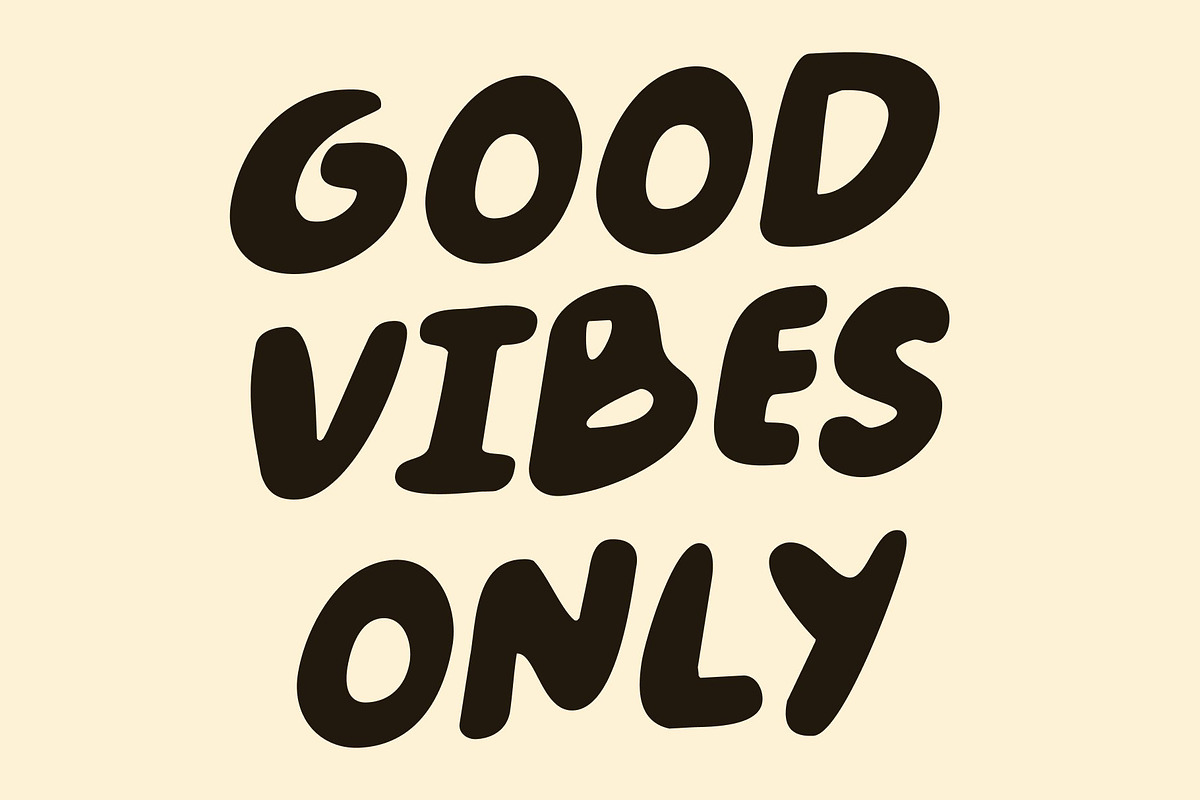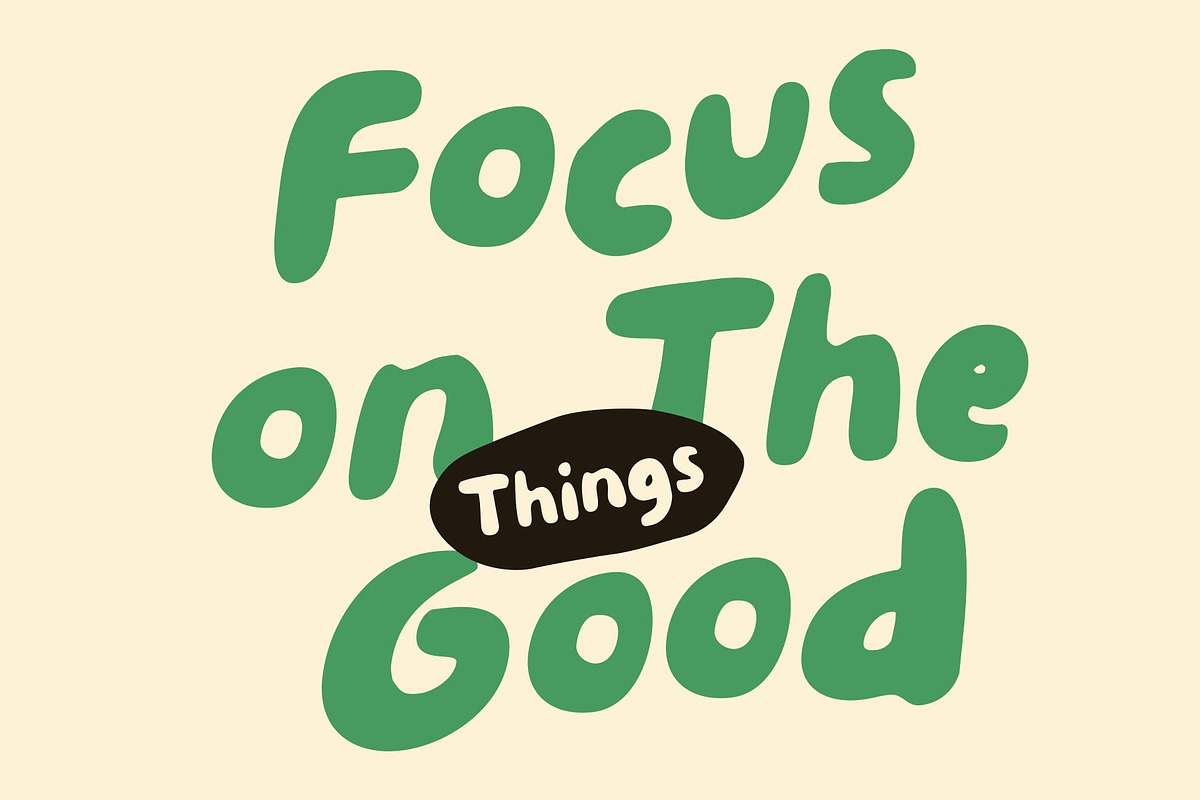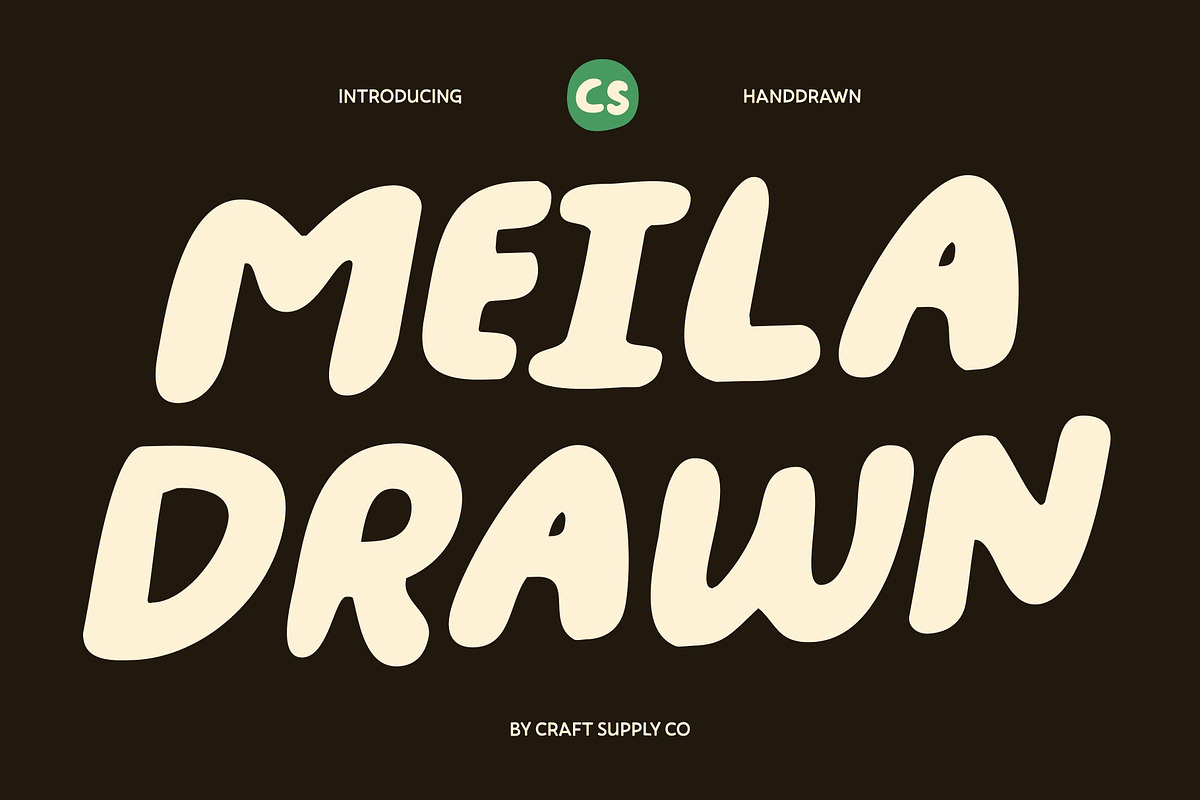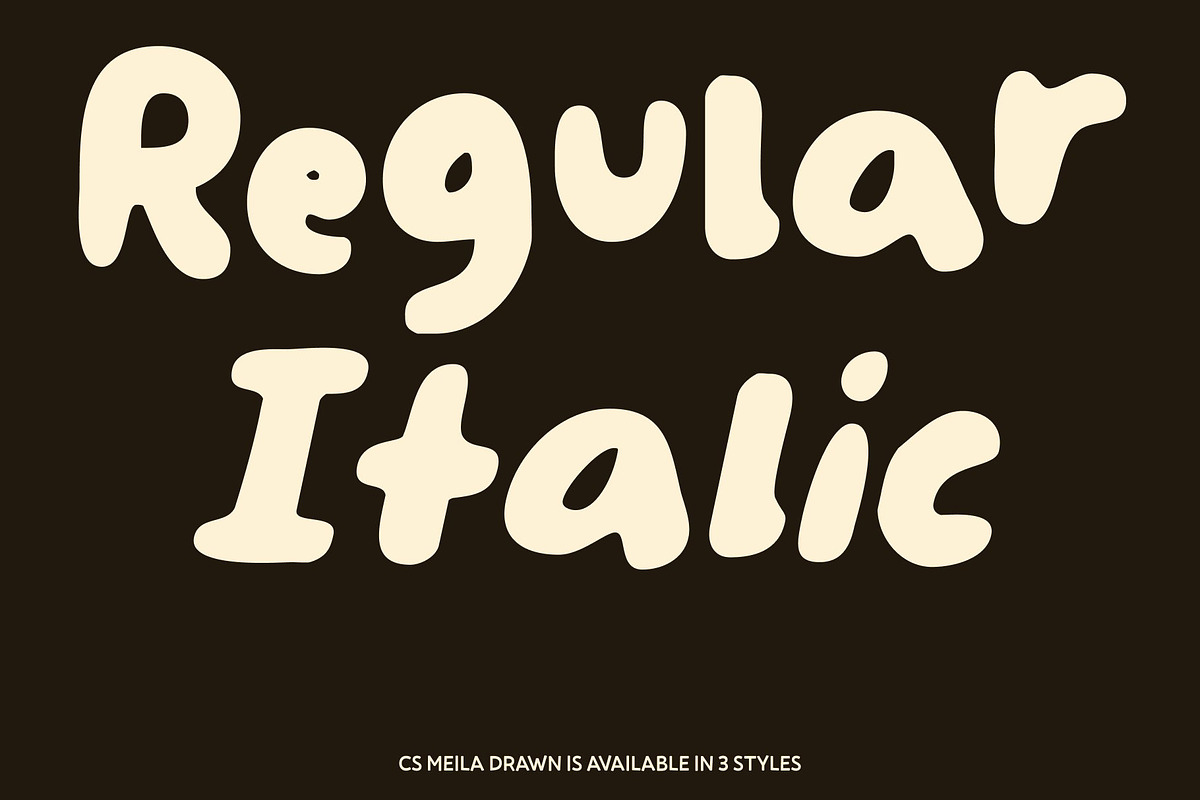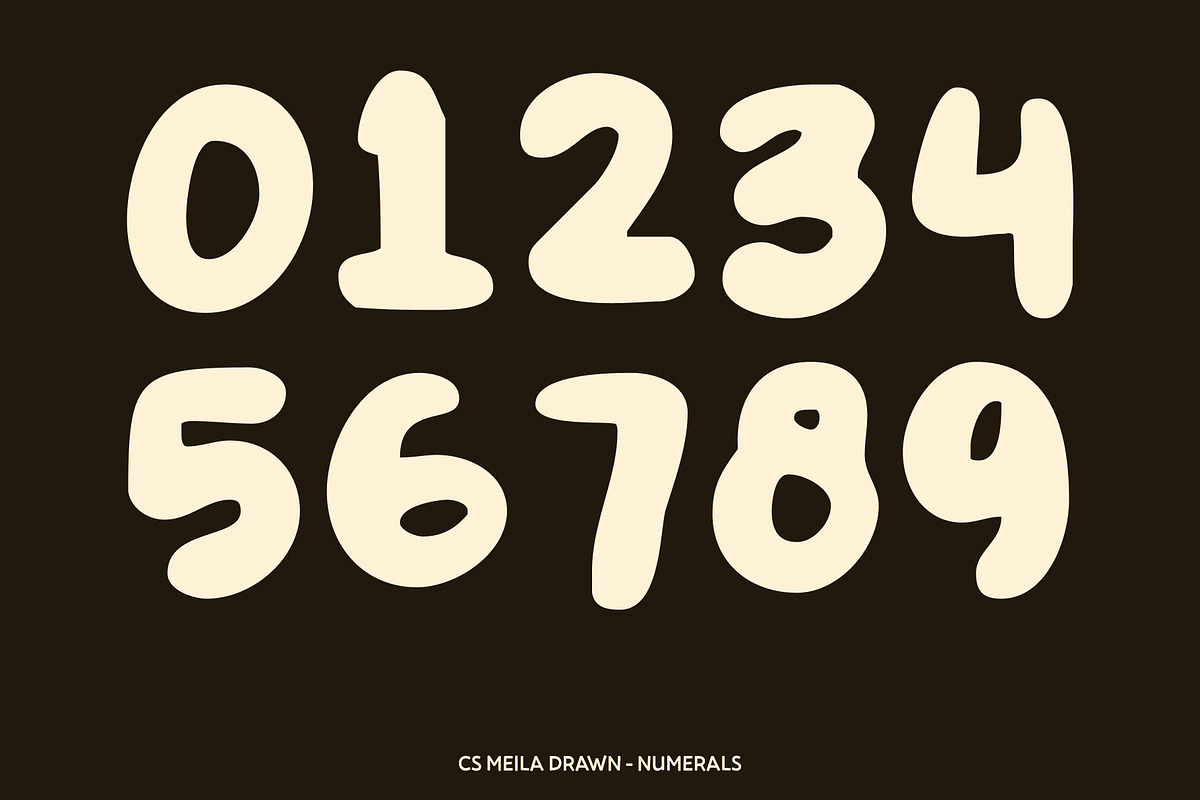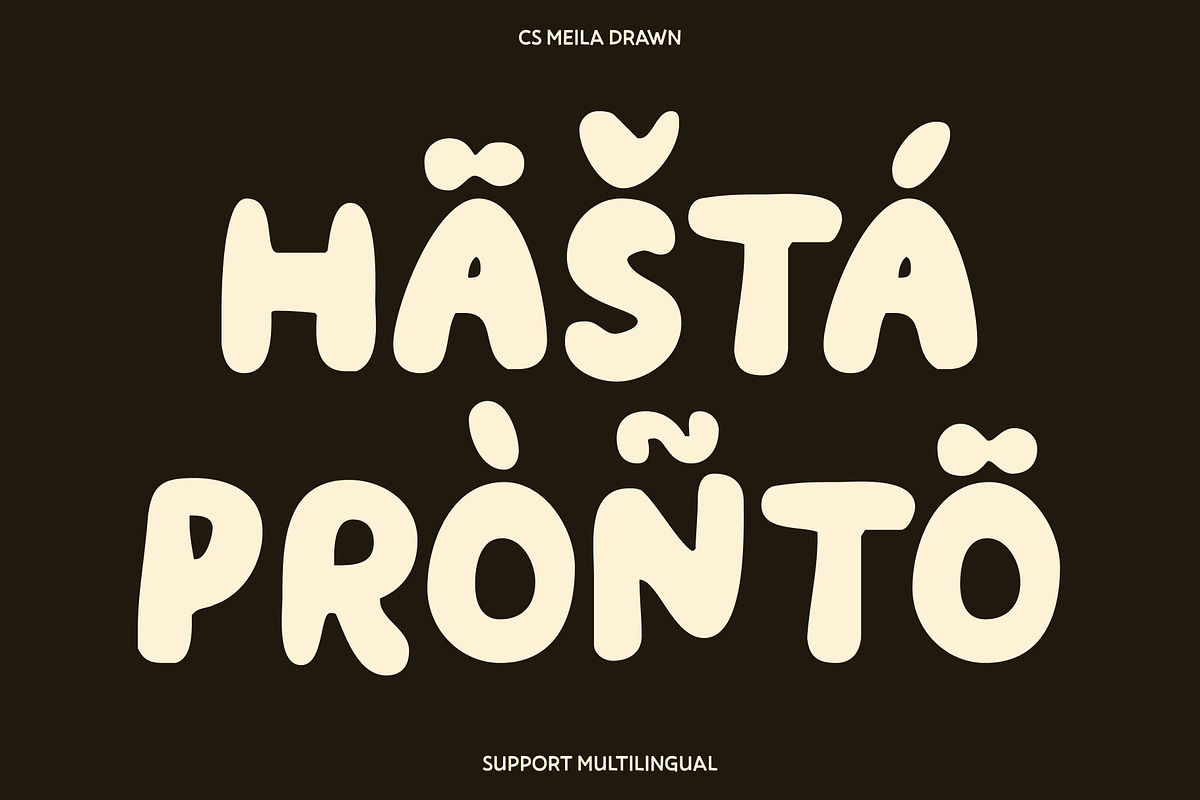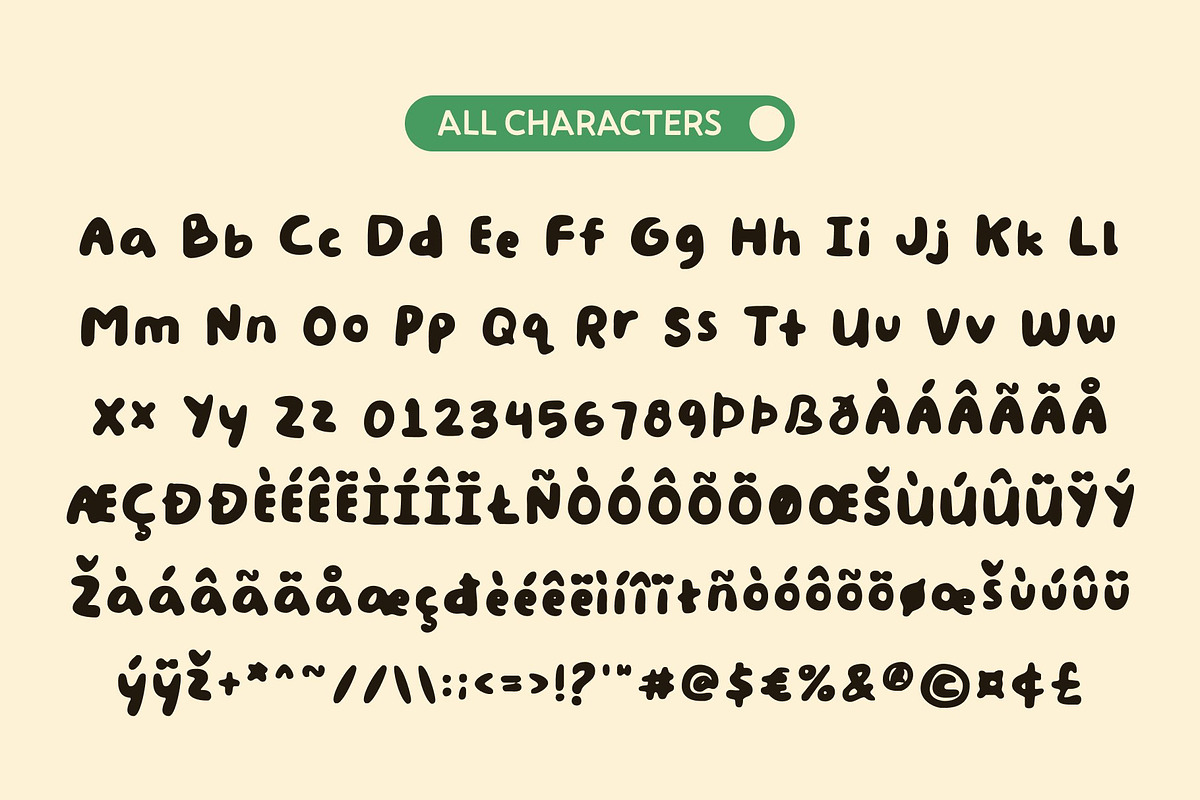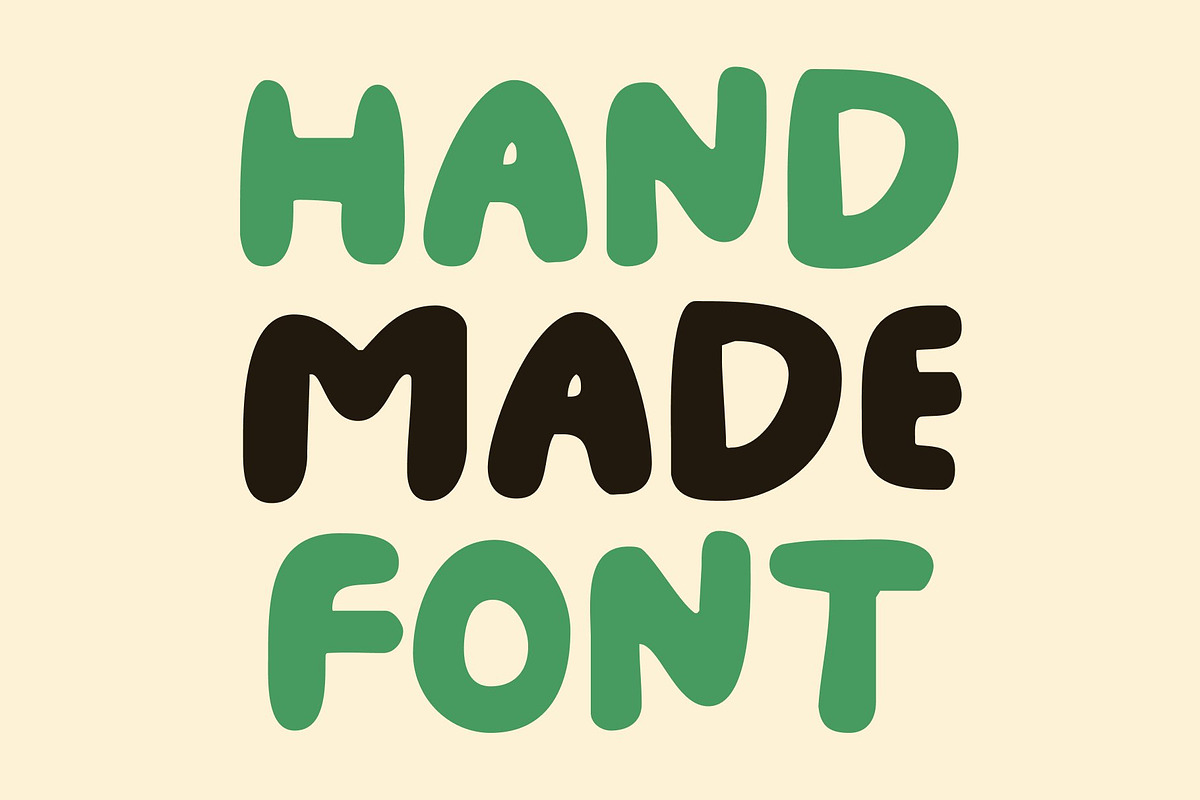
CS Meila Drawn
CS Meila Drawn – Playful Kids’ Font with Lively Personality
Cheerful Shapes with Hand-Drawn Energy This is a playful kids’ display font designed to bring joy, fun, and creativity through a lively hand-drawn texture. Its energetic letterforms and rounded curves create a cheerful visual rhythm that instantly captures attention. Each character feels friendly and expressive, making the font perfect for designs that aim to be vibrant, engaging, and full of youthful charm.
Lively Characters with Organic Personality The bold, expressive shapes are enhanced by subtle irregularities that give the font a handcrafted feel. This drawn effect adds warmth and movement, making every letter feel alive and spontaneous. The result is a dynamic visual appeal that stands out beautifully in playful layouts.
Playful Style for Fun and Approachable Designs Combining rounded strokes with whimsical details, this font delivers an approachable and imaginative tone. Its friendly appearance supports clear readability while adding joy and personality, making designs feel welcoming to both children and adults.
Perfect for Games, Posters, and Children’s Branding This font shines in games, posters, children’s branding, educational materials, party invitations, packaging, and playful editorial layouts. Whether crafting fun headlines or kid-focused visuals, This font brings cheerful energy, hand-drawn charm, and creative spirit to every project ensuring designs feel memorable and full of life.